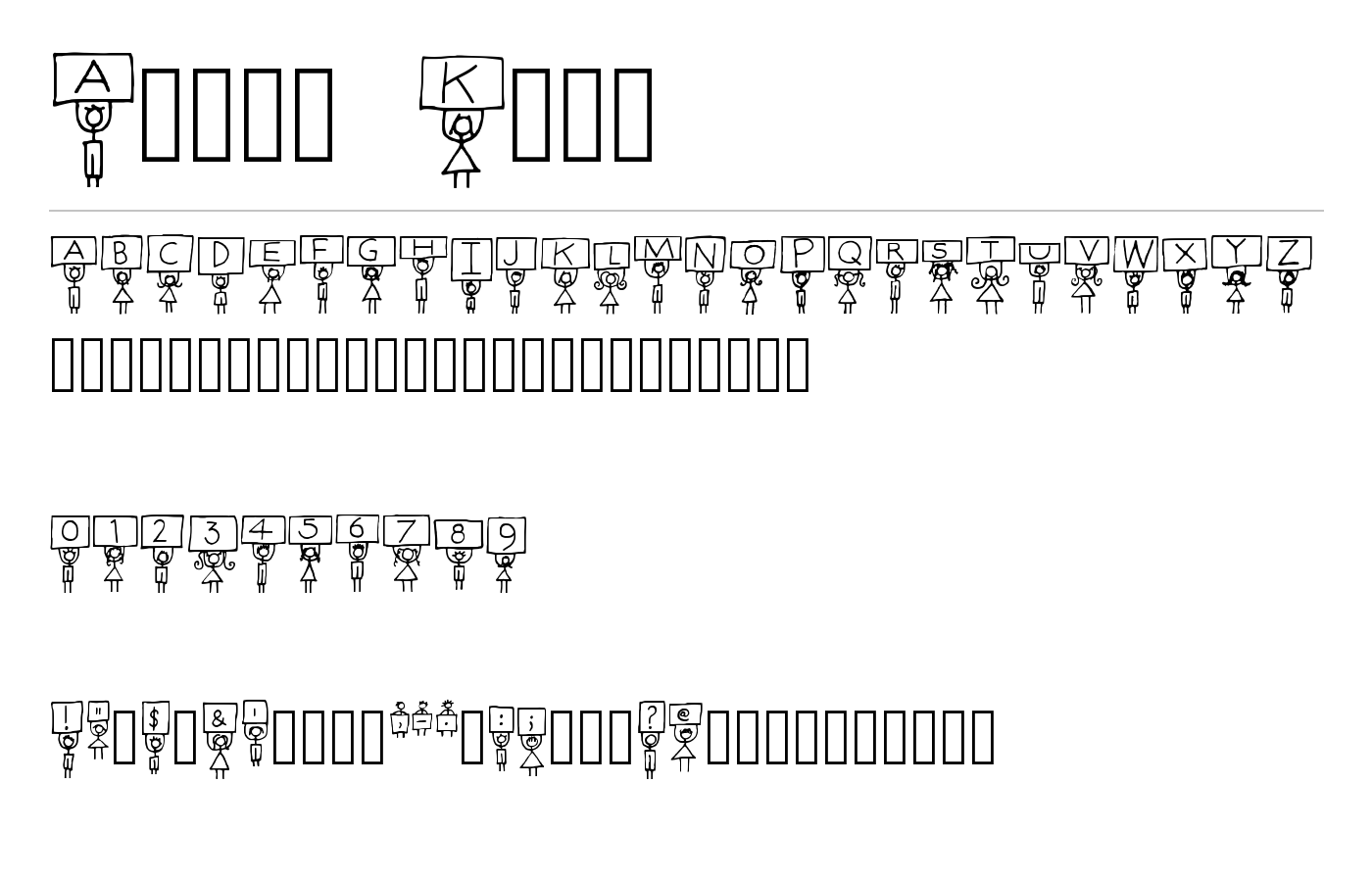
Alpha Kids Font is a playful and whimsical display font featuring hand-drawn uppercase letters and numbers held up by charming stick-figure kids. Its light, airy style with simple linework brings a fun, childlike personality perfect for educational materials, children’s books, invitations, and playful branding, making it ideal for projects that want to convey innocence and creativity.
Alpha Kids Font
About Alpha Kids Font
| Font family | Alpha Kids Font |
| Designer | S. Evans |